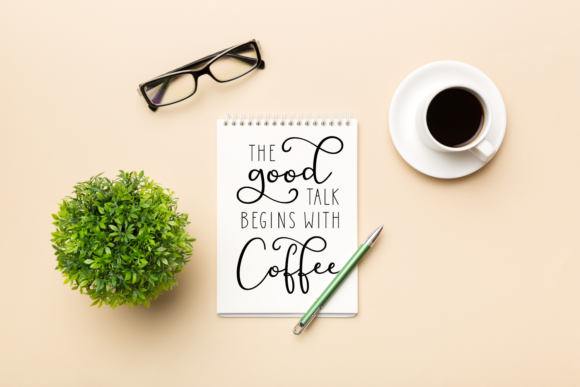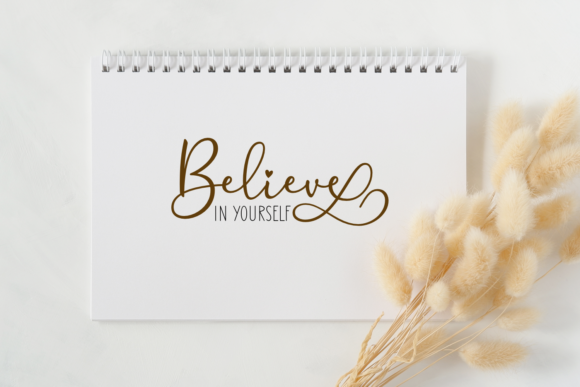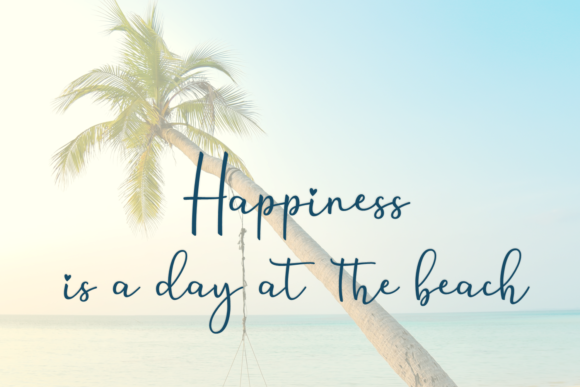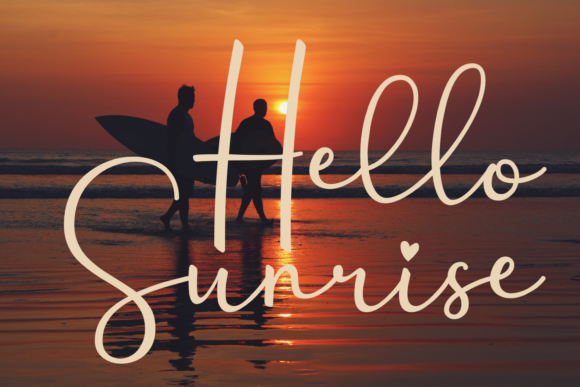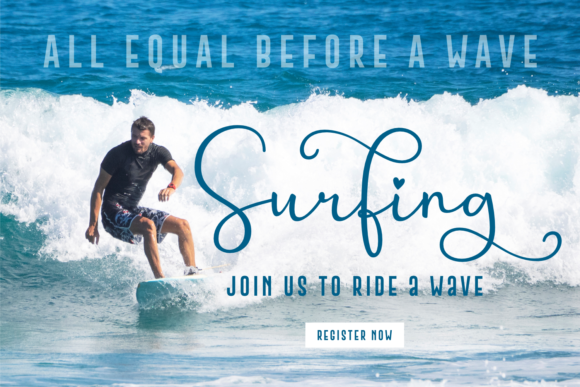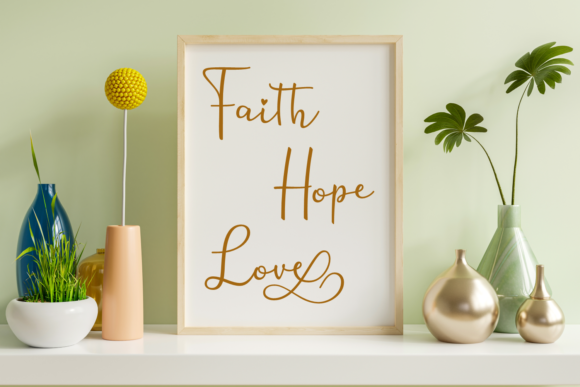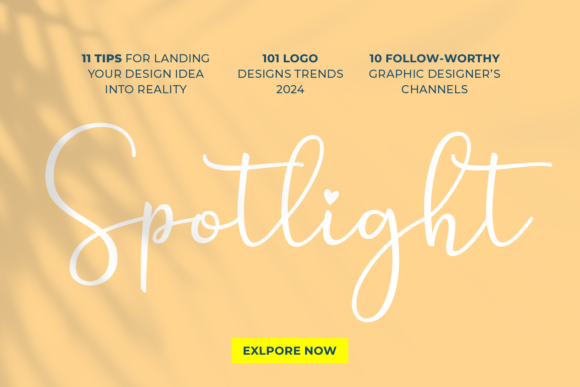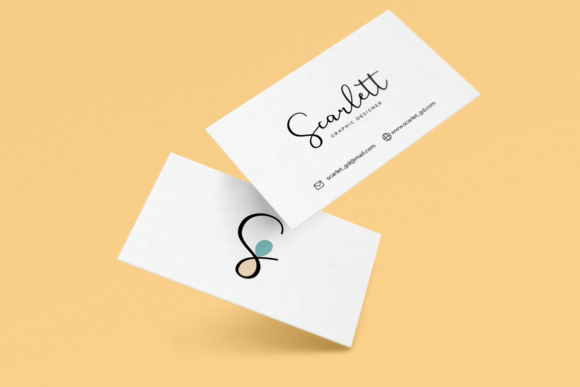
Sillvia Font
About Sillvia Font
Sillvia stands out as a stunning and contemporary calligraphy font, bringing a touch of luxury to any design project it graces. This font is a perfect choice to infuse elegance and sophistication into various creative endeavors. Whether you’re working on notes, frames, quotes, wall art, movies, posters, personal branding, business cards, or other design elements, Sillvia adds a glamorous spark that elevates the overall aesthetic.
The font’s exquisite and modern calligraphic style makes it a versatile option for a range of applications. When used for notes and quotes, Sillvia enhances the visual appeal, transforming simple text into a work of art. Its graceful curves and unique strokes contribute to the creation of visually striking frames that capture attention and add a luxurious feel to any composition.
In the realm of personal and business branding, Sillvia makes a powerful statement. Whether incorporated into business cards or personal branding materials, the font exudes a sense of refinement and sophistication, leaving a lasting impression on your audience.
The luxurious charm of Sillvia is equally effective in enhancing visual elements for movies, posters, and wall art. Its modern calligraphy design adds a contemporary and upscale touch, making it a standout choice for projects that demand a high level of style and visual impact.
In summary, Sillvia is not just a font; it’s a design asset that brings a gorgeous and modern aesthetic to a wide array of creative projects. Its ability to infuse a luxury spark makes it a valuable tool for designers looking to elevate their work, whether in notes, frames, quotes, wall art, movies, posters, personal branding, business cards, and beyond.